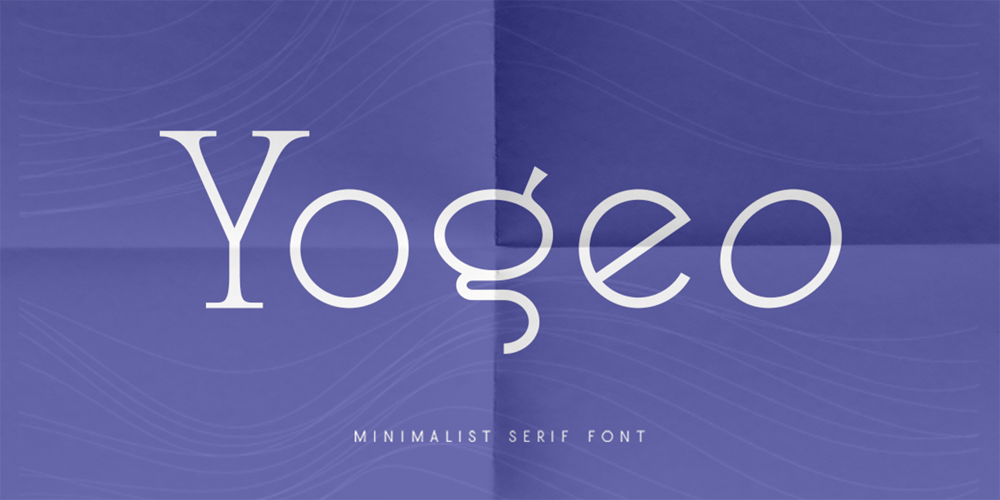
Yogeo Font Family was designed by Rochadi Sudarma and published by Rochart. Yogeo contains 2 styles and family package options. Give your designs a classy feel. “Yogeo” is perfectly suited to stationery, logo, typography quotes, magazine or book cover, website header, clothing, branding, packaging design and more. A minimalist serif font containing uppercase and lowercase characters, numerals, a large range of punctuation, international language and ligatures.I hope you make something cool with it!